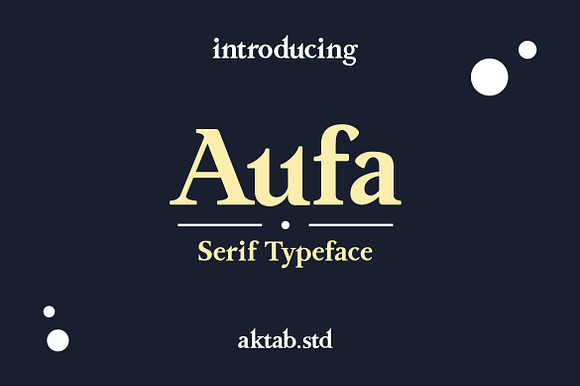
Aufa A Serif Typeface
Aufa A Serif Typeface by aktab.studio is a font selected for branding, posters, packaging, typography.
Why Aufa A Serif Typeface is worth a look
Aufa A Serif Typeface by aktab.studio fits naturally into Branding, posters, packaging, typography.